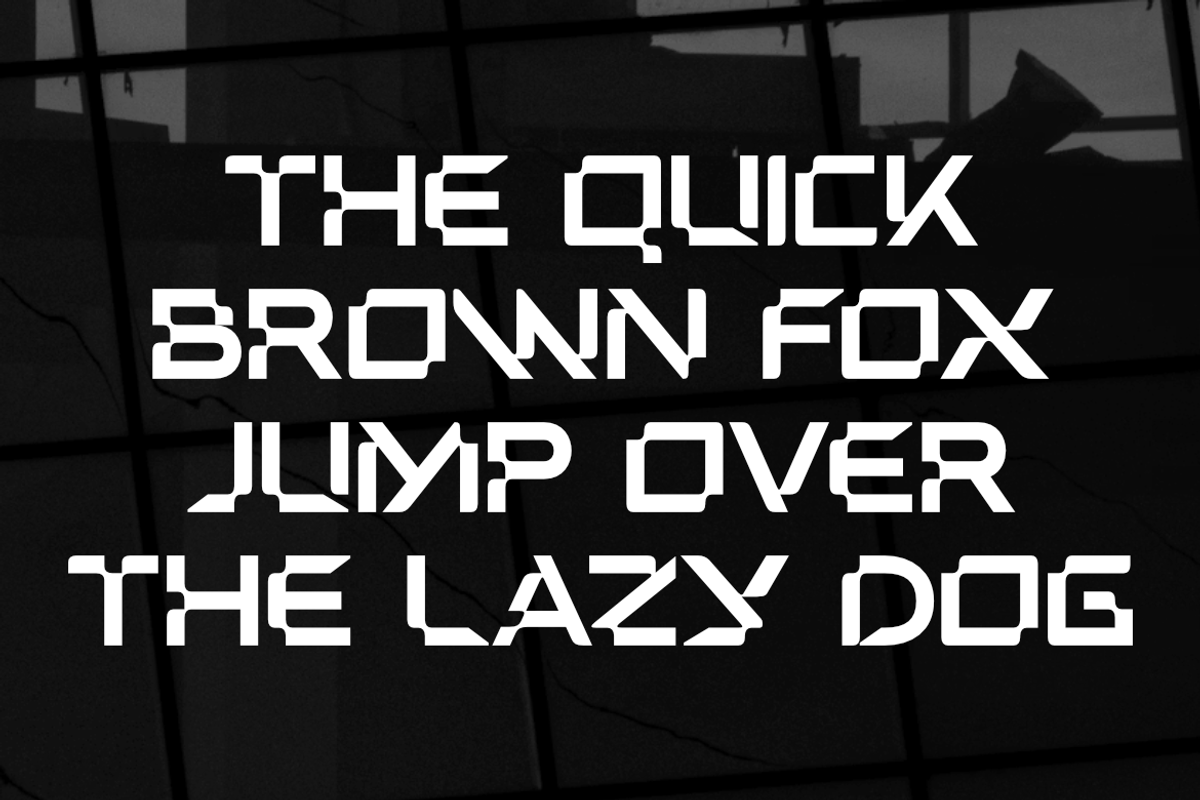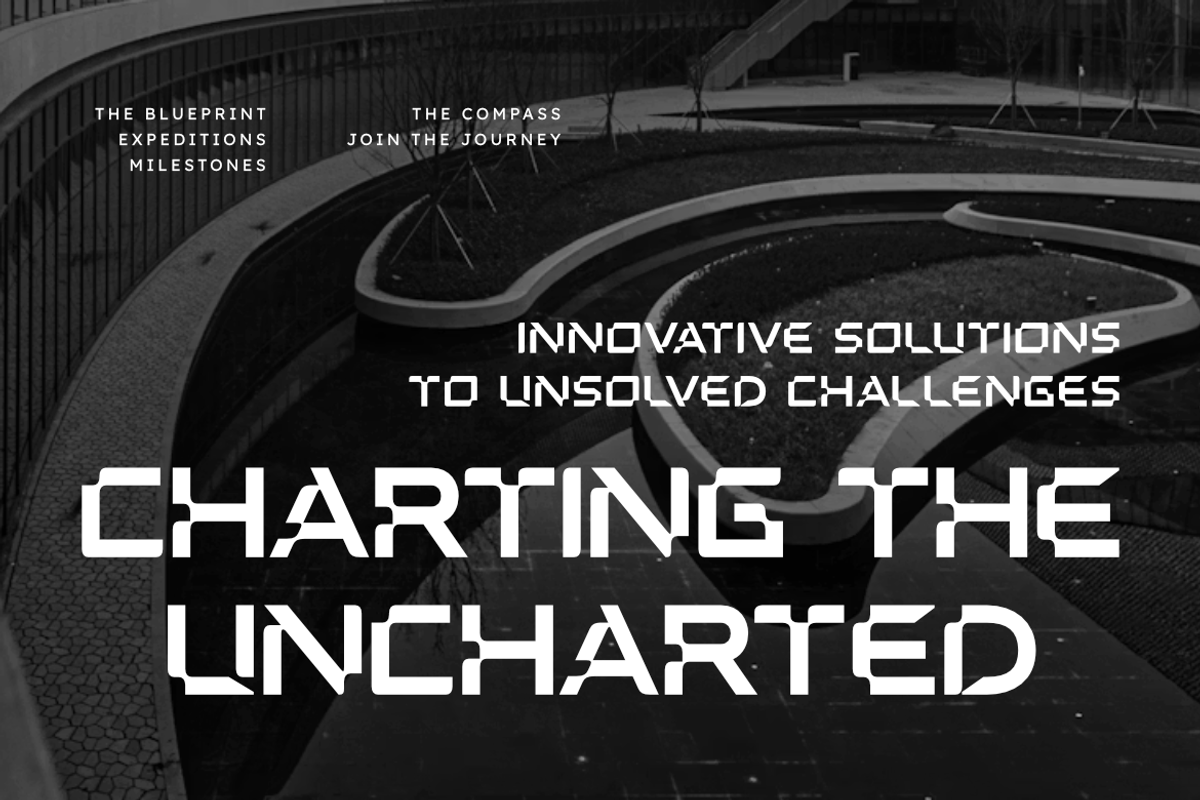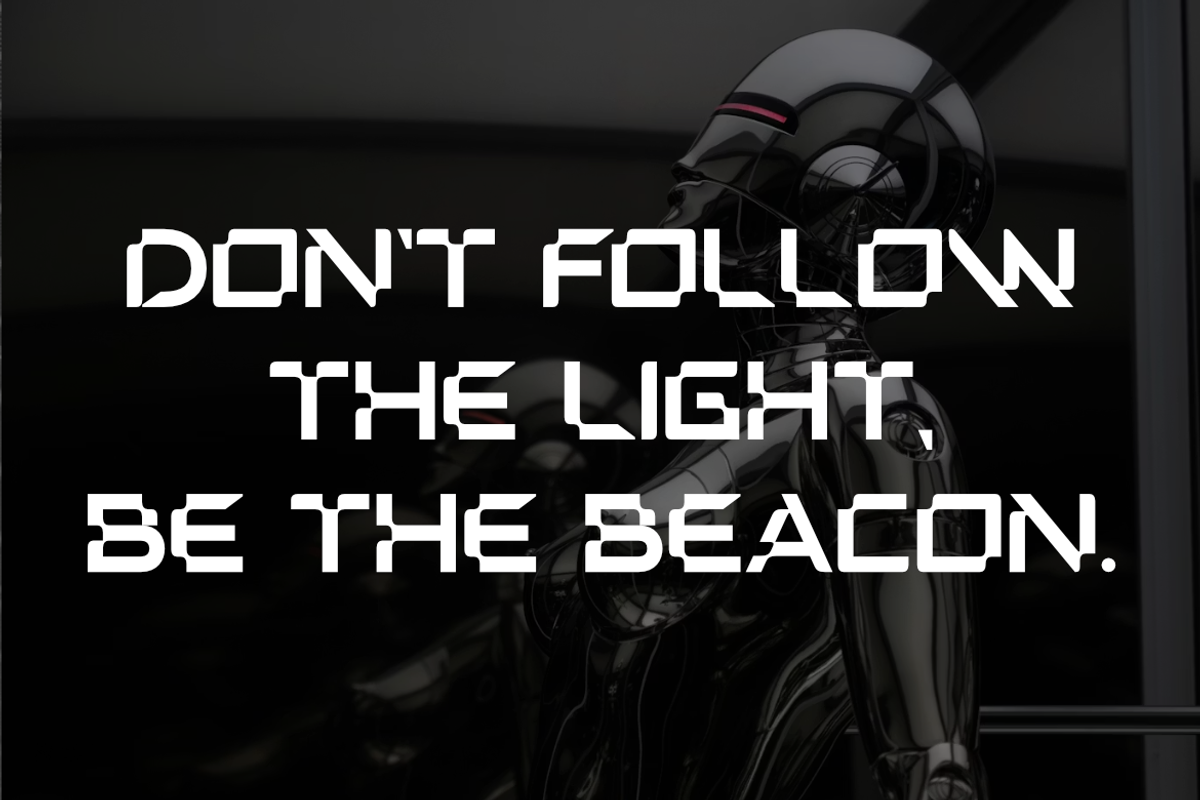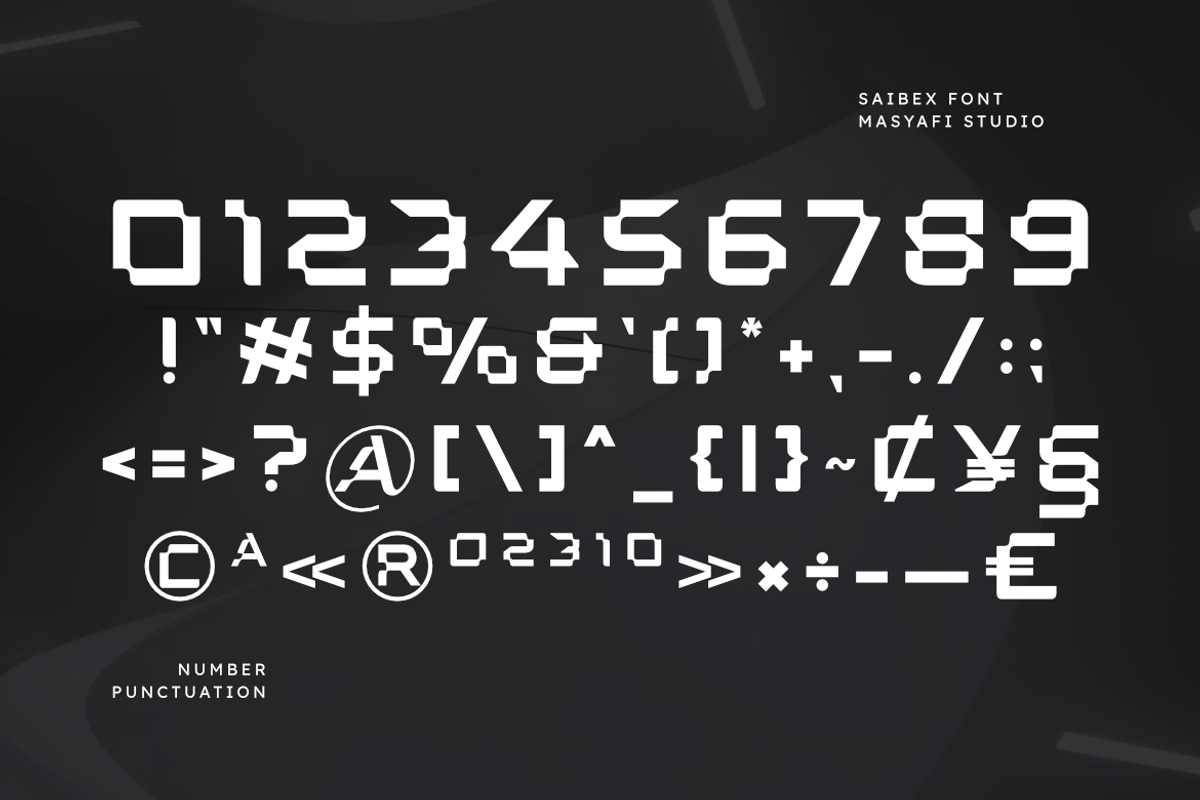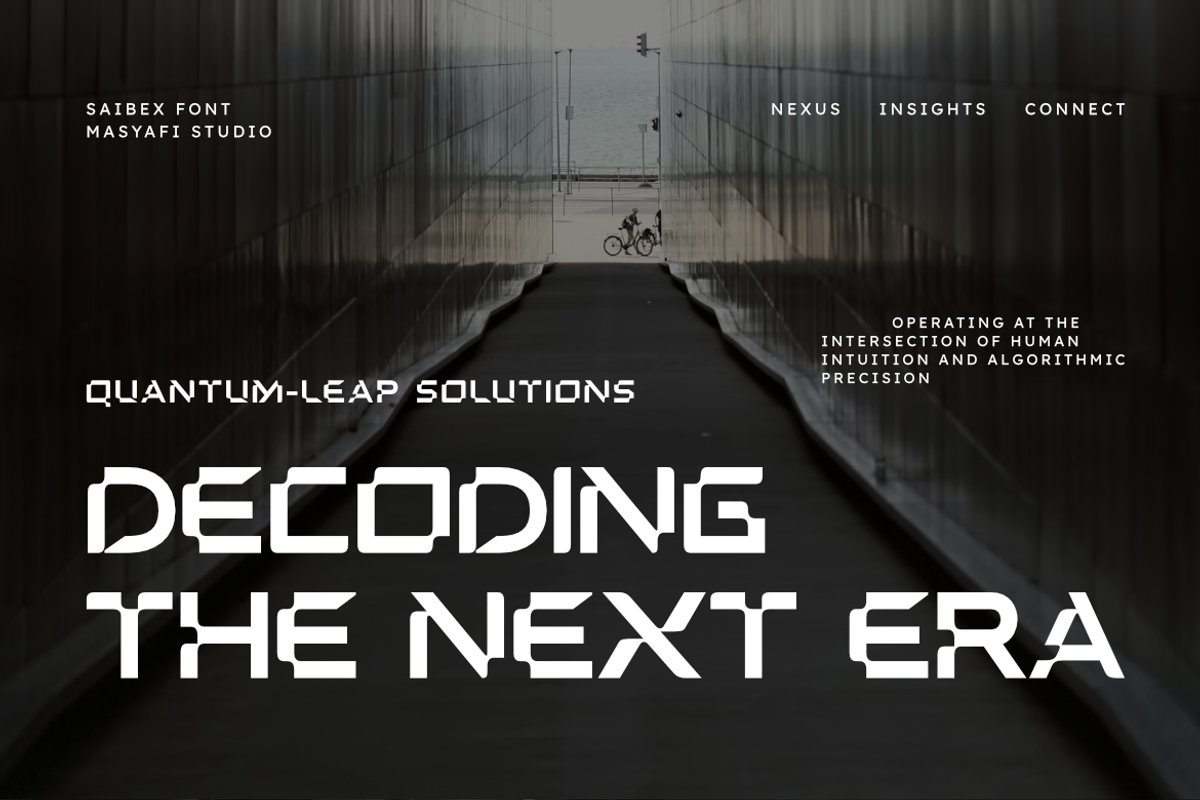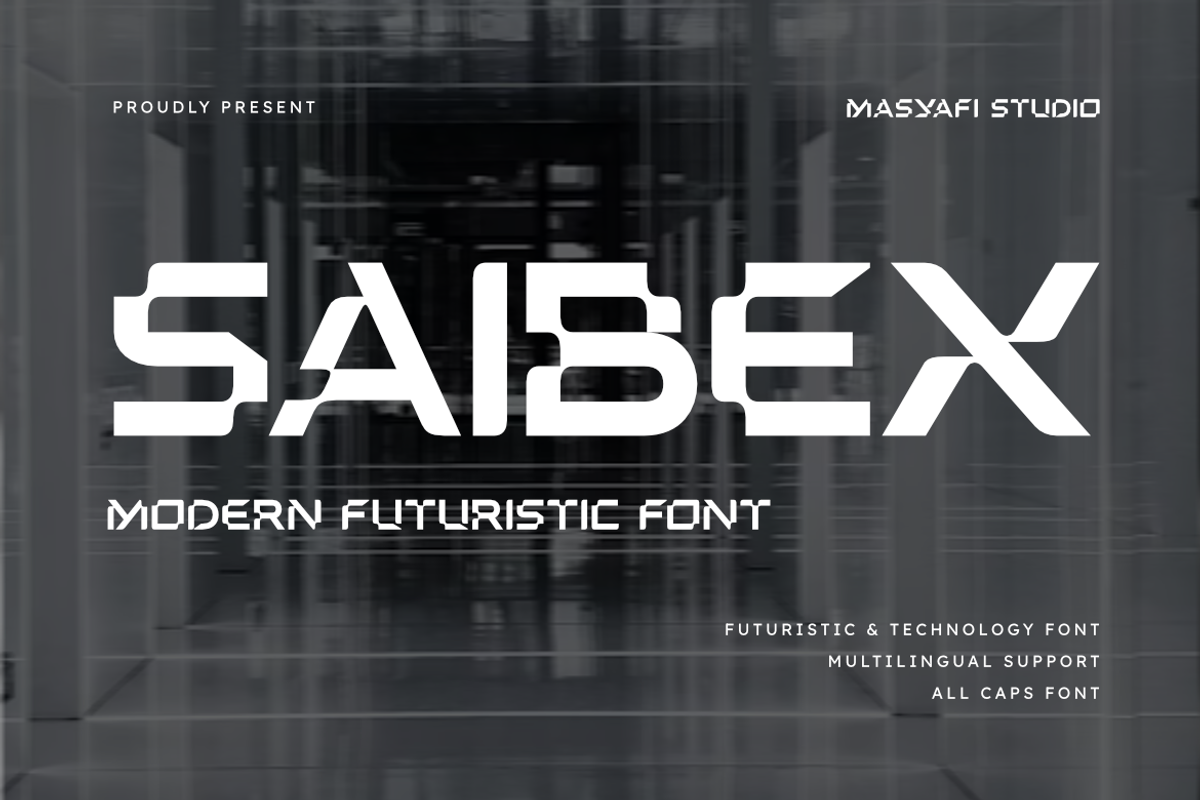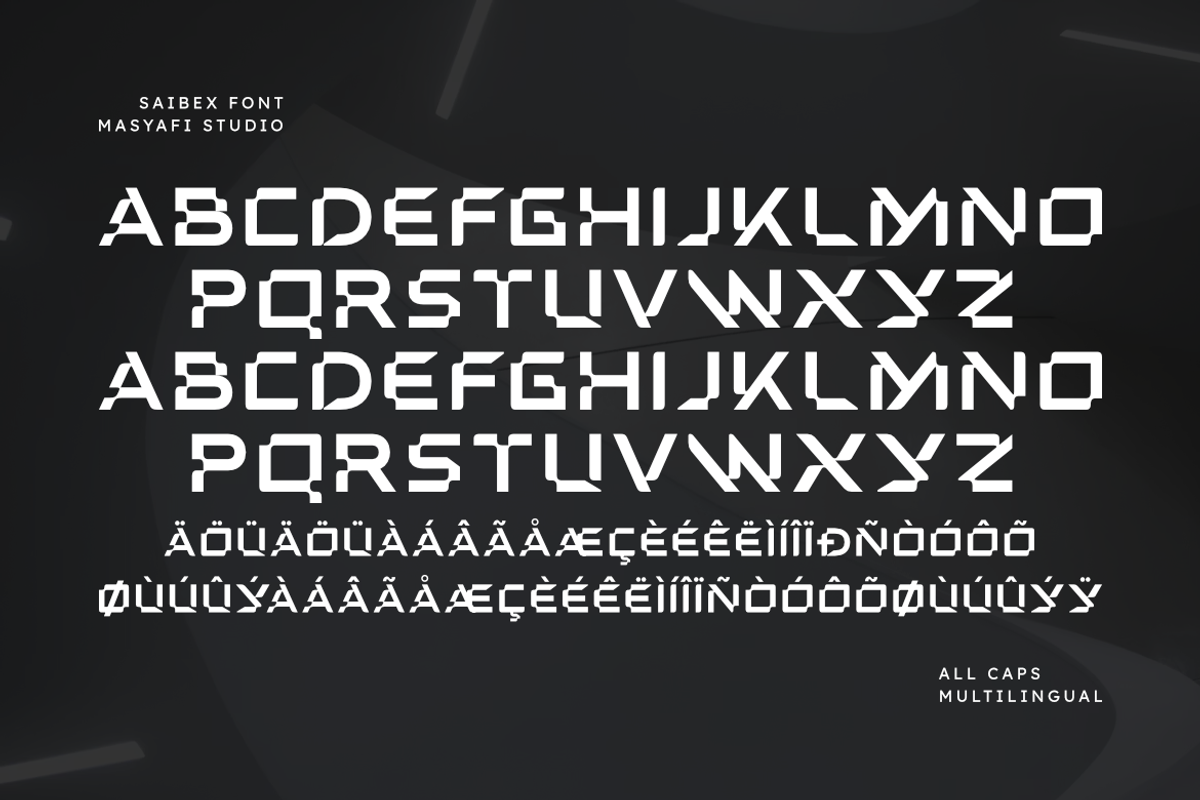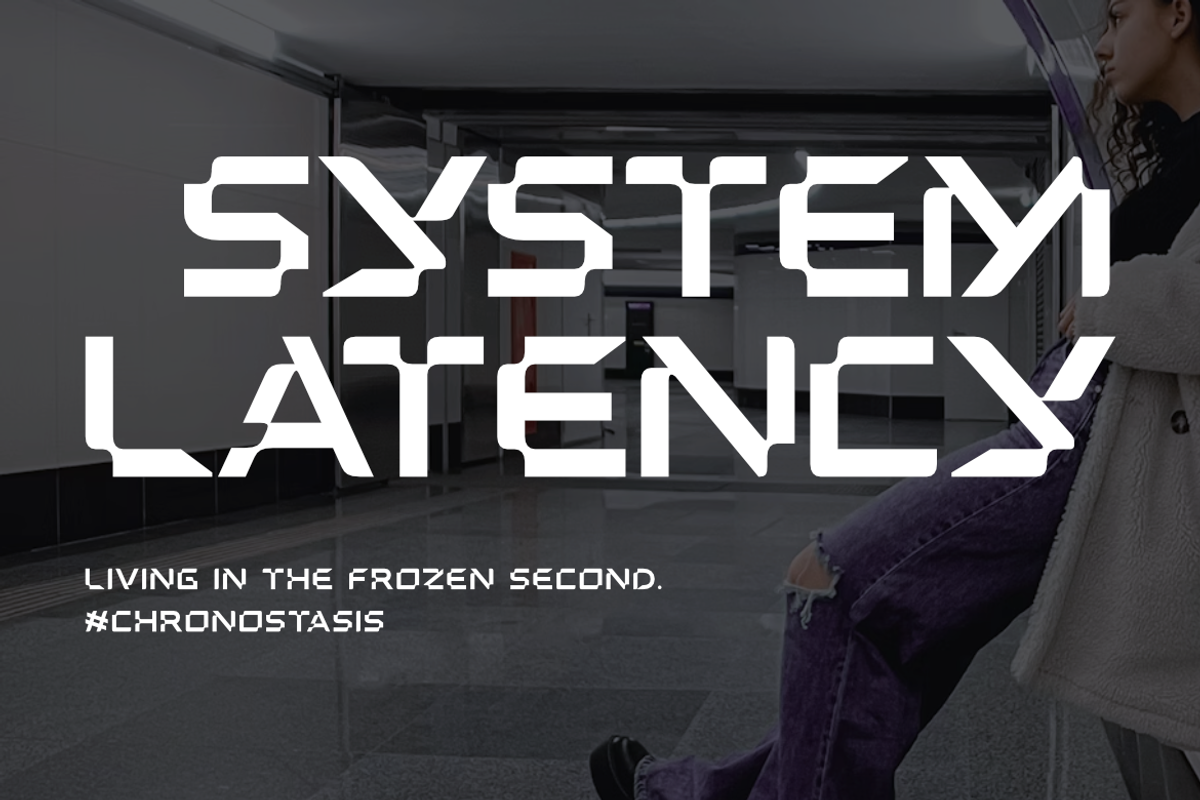
Saibex | Futuristic Technology Font
Power up your designs with Saibex, a powerhouse futuristic font from Masyafi Studio. Inspired by the sleek aesthetics of modern robotics and space-age architecture, Saibex is a masterclass in geometric precision, blending mechanical rigidity with a dynamic flow that screams innovation.
Saibex was crafted specifically for creators who need a font with "attitude." Its solid, wide-set proportions make it an ideal choice for high-energy branding, futuristic UI/UX interfaces, and aggressive sports apparel. This font doesn't just sit on a page; it commands attention and defines the visual landscape of the future.
Designed For Maximum Impact In:
- Gaming & eSports: Perfect for team logos, streaming overlays, and clan identities.
- Technology & AI: Ideal for brands focused on innovation, software, and future-tech.
- Sports & Automotive: Great for bold headlines, racing graphics, and fitness branding.
- Entertainment: Excellent for cinematic titles, posters, and sci-fi book covers.
- All Caps Alphabet & Numbers
- Comprehensive Punctuation & Multilingual Support